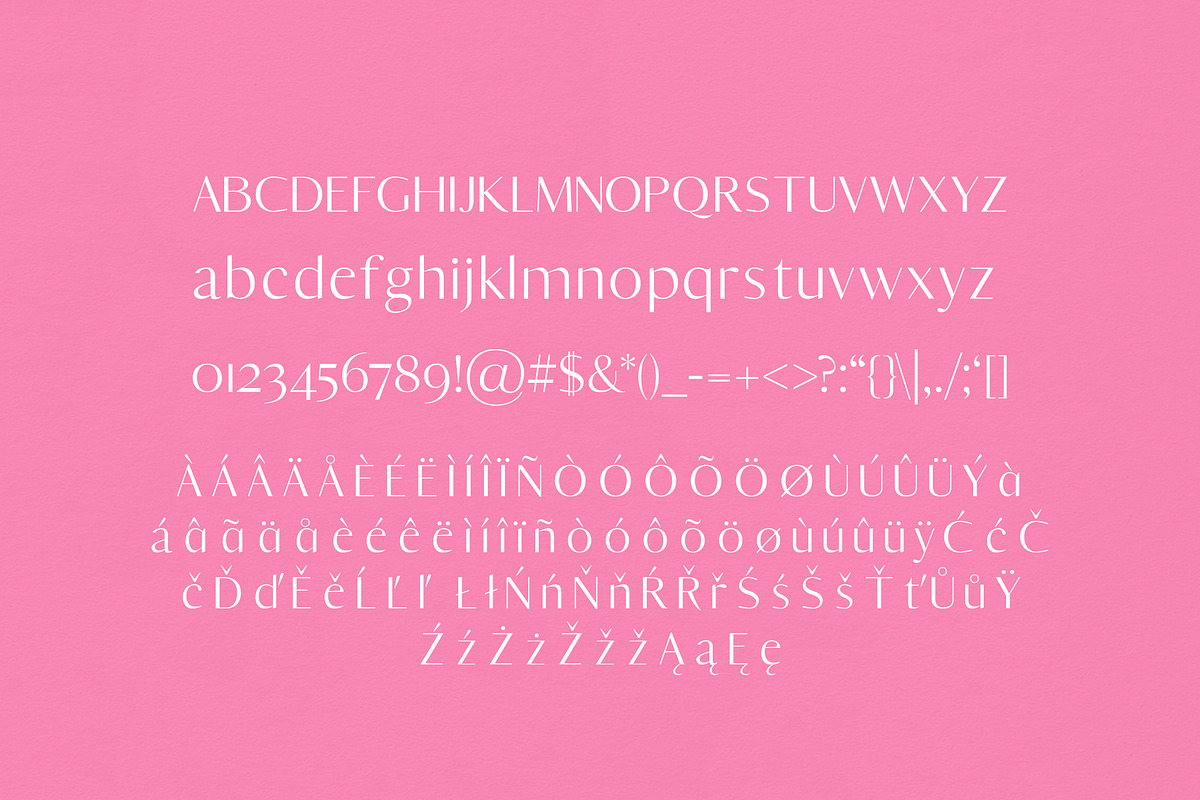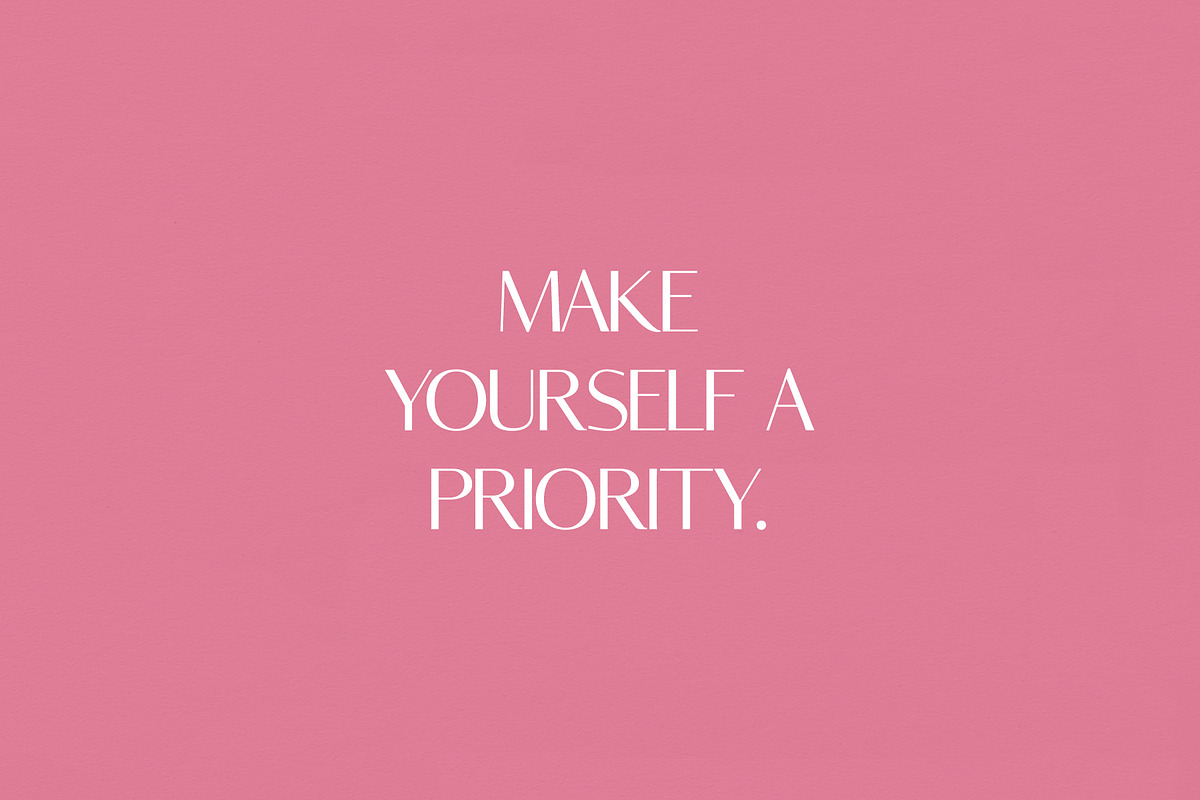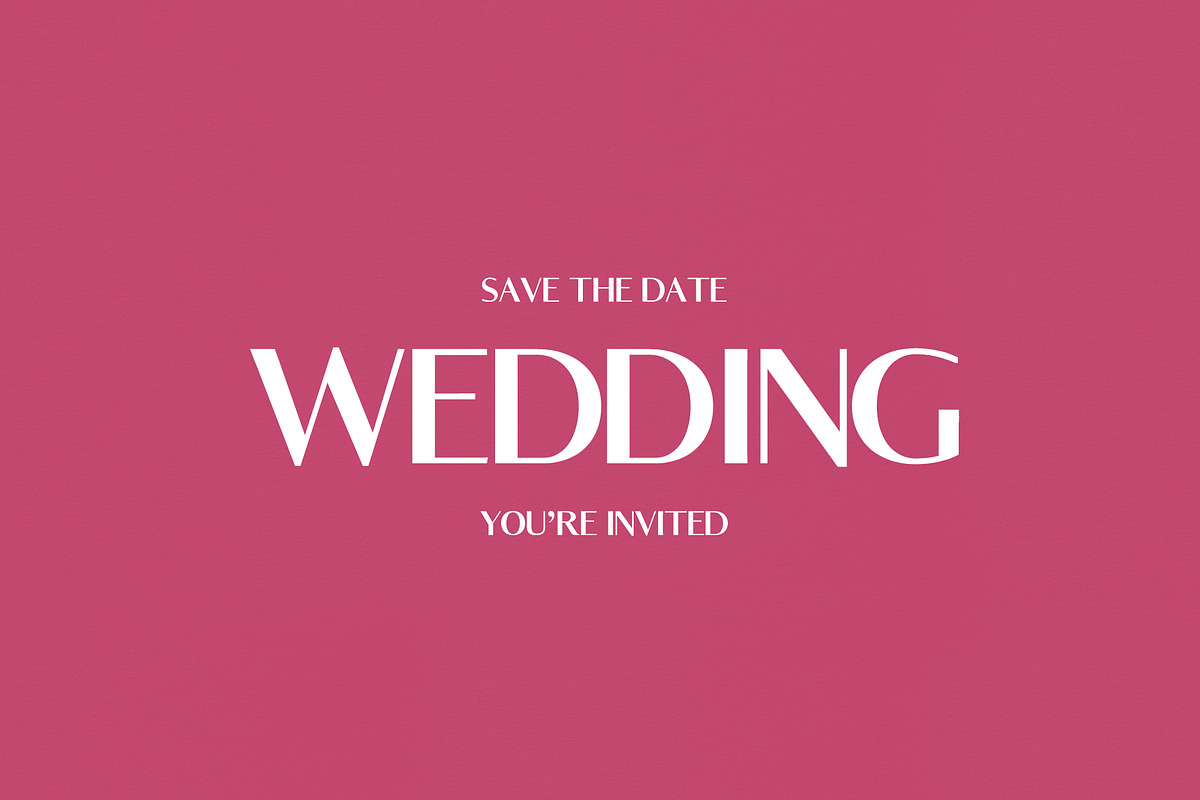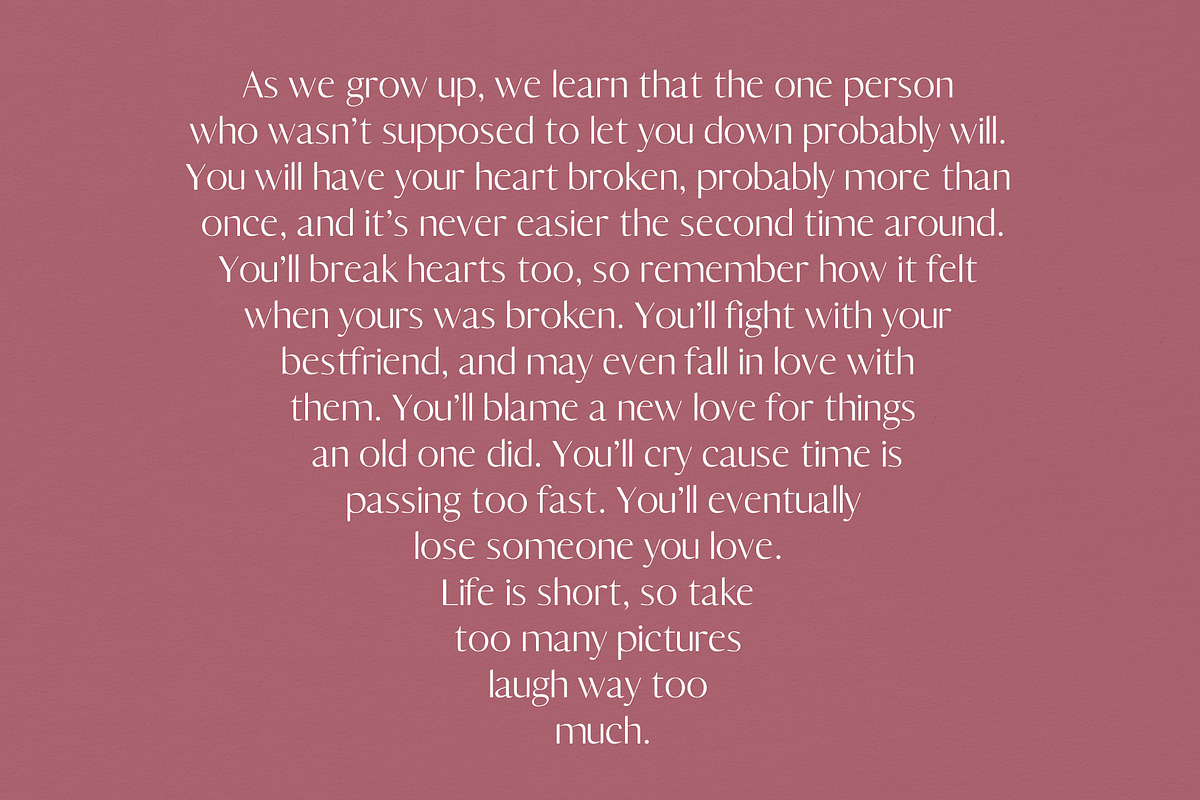
Yadon Sans Serif Fonts Family Pack
Yadon Sans Serif Fonts Family Pack by Creativetacos is a font selected for branding, posters, packaging, typography.
- Font Weight: Light, Thin, Medium, Regular, Distorted, Black, Bold, Extended, Outline
- Yadon Thin
- Yadon Light
- Yadon ExtraExpanded
- Yadon Regular
- Yadon Medium
- Yadon Bold
- Yadon Black
- Yadon Distorted
- Yadon Outline
Yadon Sans Serif Fonts Family Pack by Creativetacos fits naturally into Branding, posters, packaging, typography.